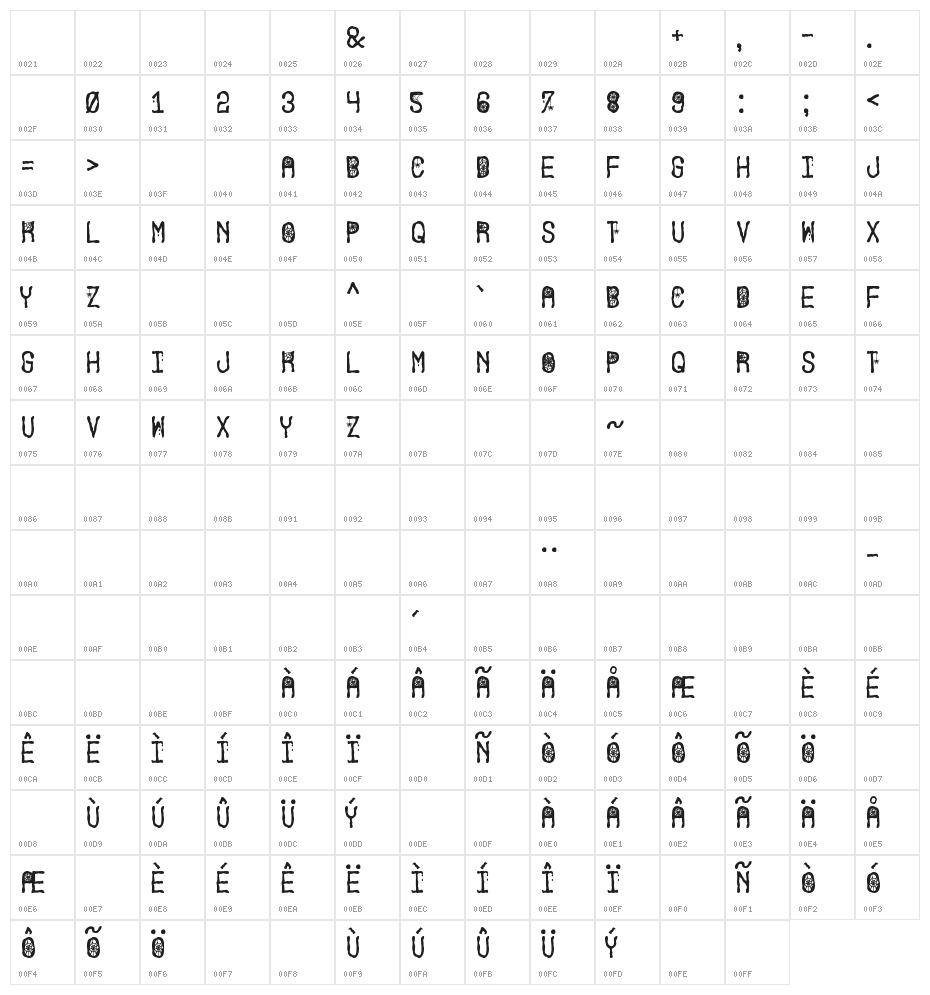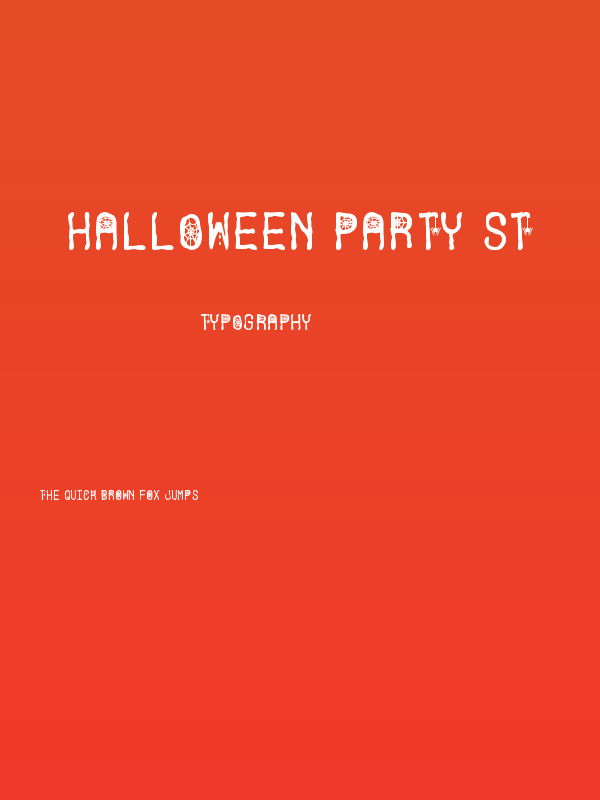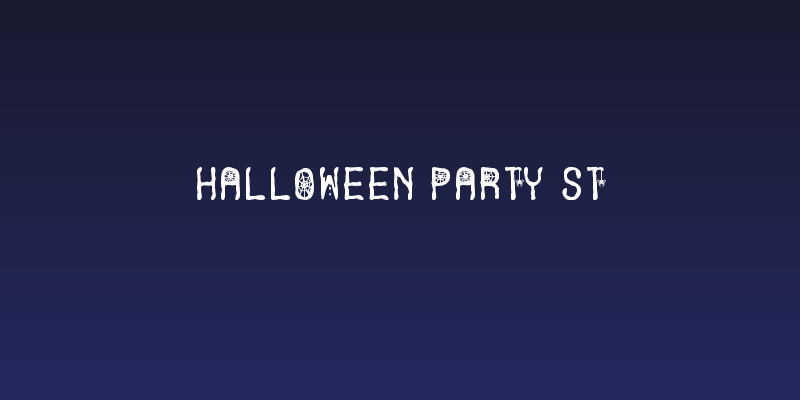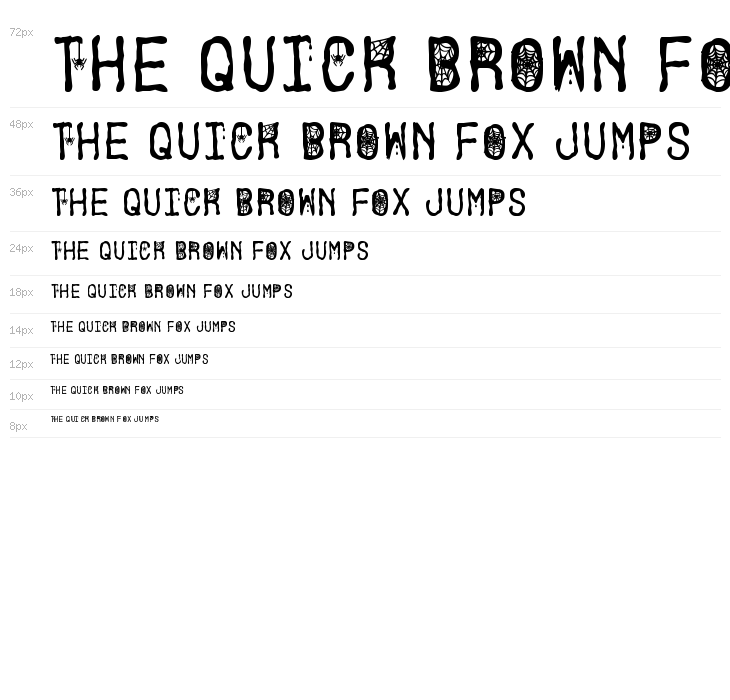
Halloween Party St Font
Halloween Party St Description
This font features a spooky and playful design, perfect for Halloween-themed projects. Each character is creatively adorned with elements like spider webs and spiders, giving it a unique and eerie appearance. The letters are bold and slightly irregular, enhancing the creepy vibe. The numbers and special characters maintain the same thematic style, ensuring consistency across all text elements. This font is ideal for capturing the essence of Halloween with its decorative and thematic elements.
| Proposed Projects | Ideal for Halloween party invitations, themed posters, spooky greeting cards, and decorative banners. |